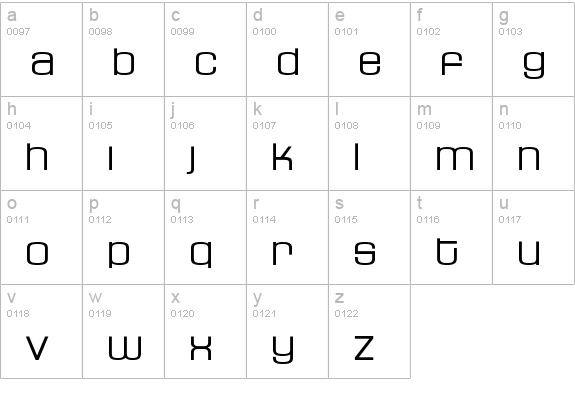
HouseGothicHG23Ext LIGHT3 is a refined, elegant variant in the HouseGothicHG23Ext typeface family \xE2\x80\x94 well suited to elegant body text, refined sub-headings, and luxury branding.
HouseGothicHG23Ext LIGHT3 font is a modern and sleek typeface that exudes sophistication and elegance. With its clean lines and sharp angles, this font is perfect for adding a touch of contemporary style to any design project. The light weight of this font adds a delicate and airy feel, making it ideal for use in headings, titles, and other prominent text elements. Best of all, HouseGothicHG23Ext LIGHT3 font is available for free download at FontsMarket.com. This means you can easily incorporate this stylish font into your projects without any additional cost. Don't miss out on the opportunity to enhance your designs with this versatile and eye-catching typeface. Download HouseGothicHG23Ext LIGHT3 font today and take your creations to the next level!